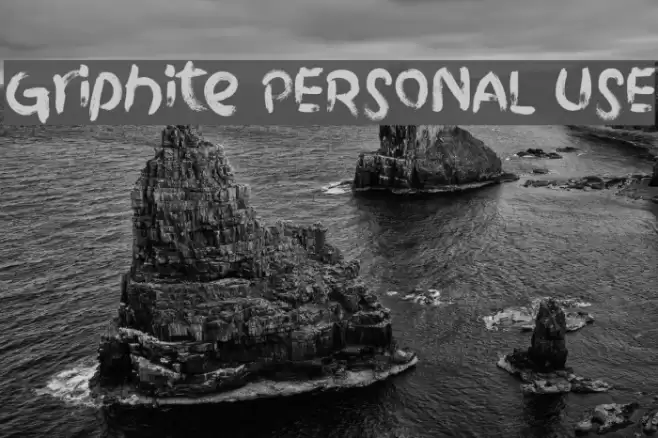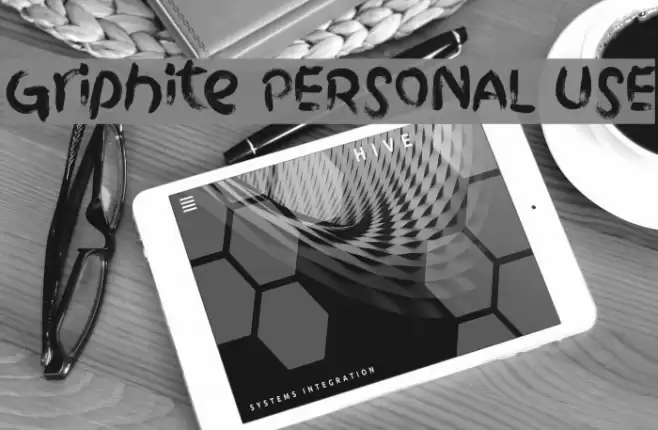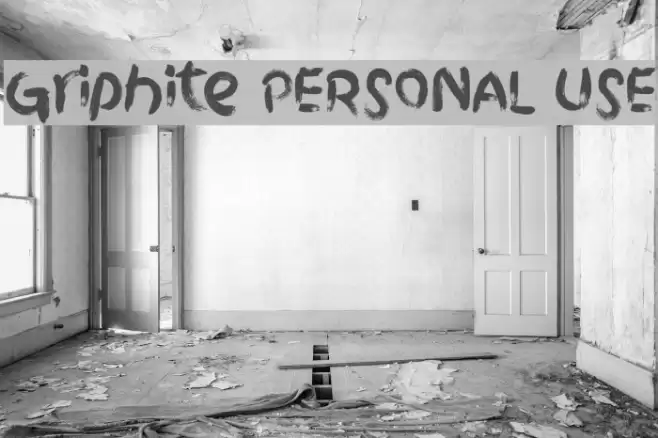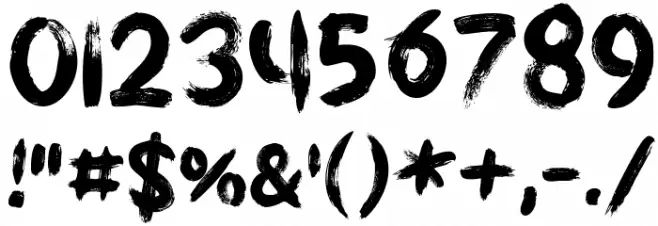
Griphite PERSONAL USE Font
Griphite PERSONAL USE Description
This font exhibits a bold and expressive brushstroke style, characterized by its dynamic and textured appearance. Each letter is crafted with a sense of movement, giving it a lively and energetic feel. The strokes are uneven and varied, adding a handmade, artistic quality. The uppercase and lowercase letters maintain a consistent style, while the numerals and special characters complement the overall aesthetic. This font is ideal for projects that require a personal touch or an artistic flair, making it suitable for creative designs and expressive typography.
A bold, expressive brushstroke font with a dynamic and textured appearance from Uncategorized fonts.
- Proposed Projects: Ideal for artistic projects, posters, branding, and any design requiring a personal, handmade touch.